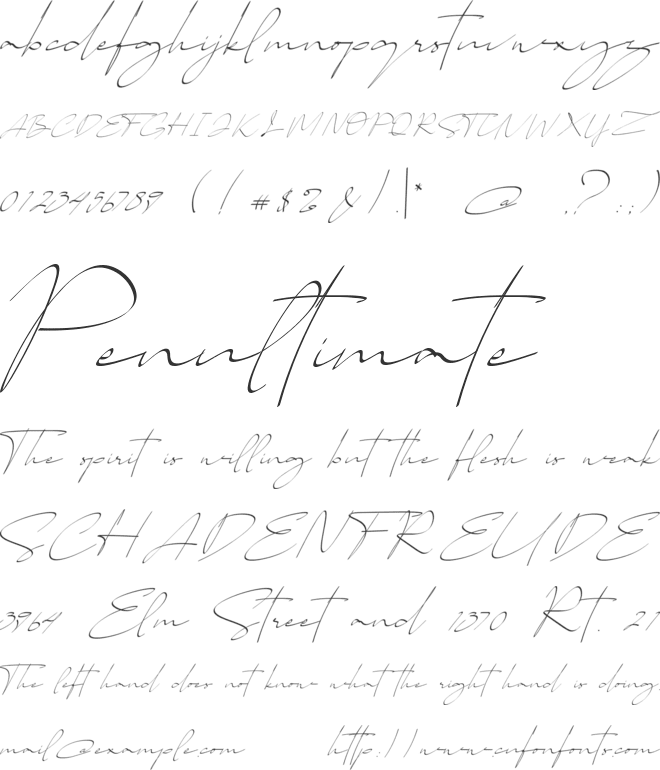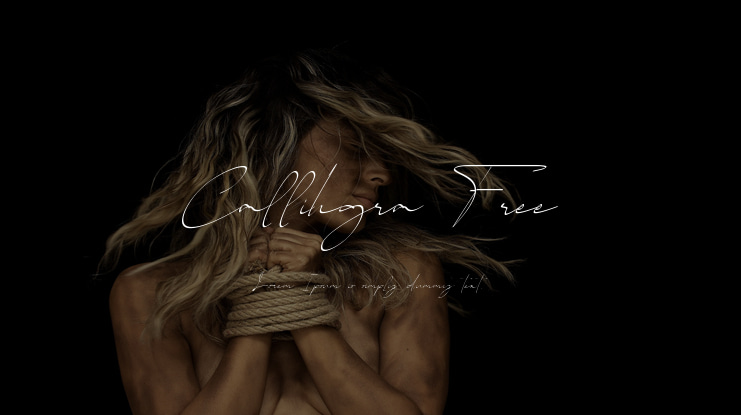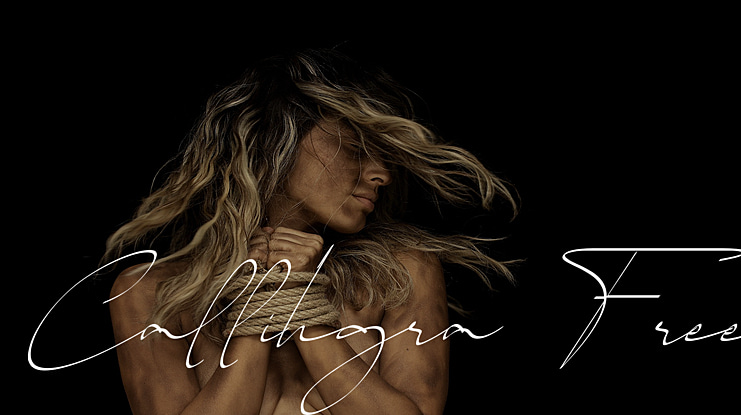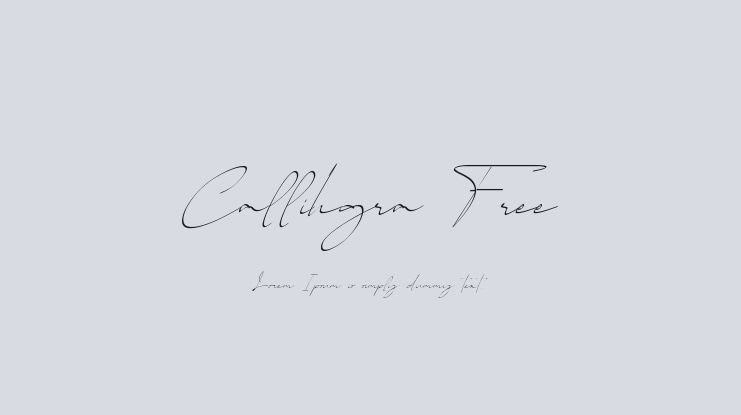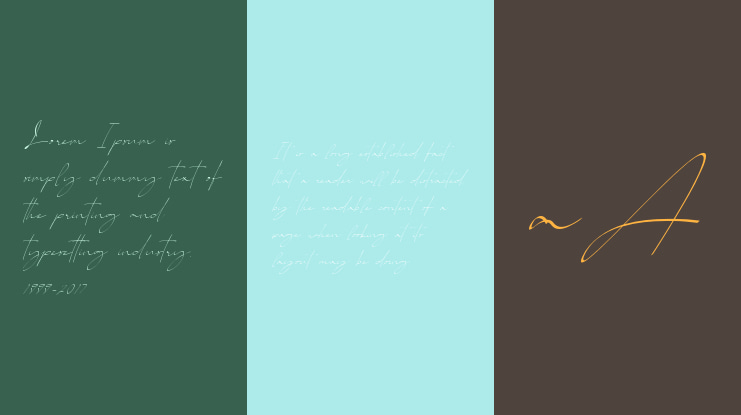
Callihgra Free Font
Callihgra is a natural handwritten font, comes with full set of uppercase and lowercase letters, lowercase ending swashes, multilingual support, numerals, swashes and punctuations.